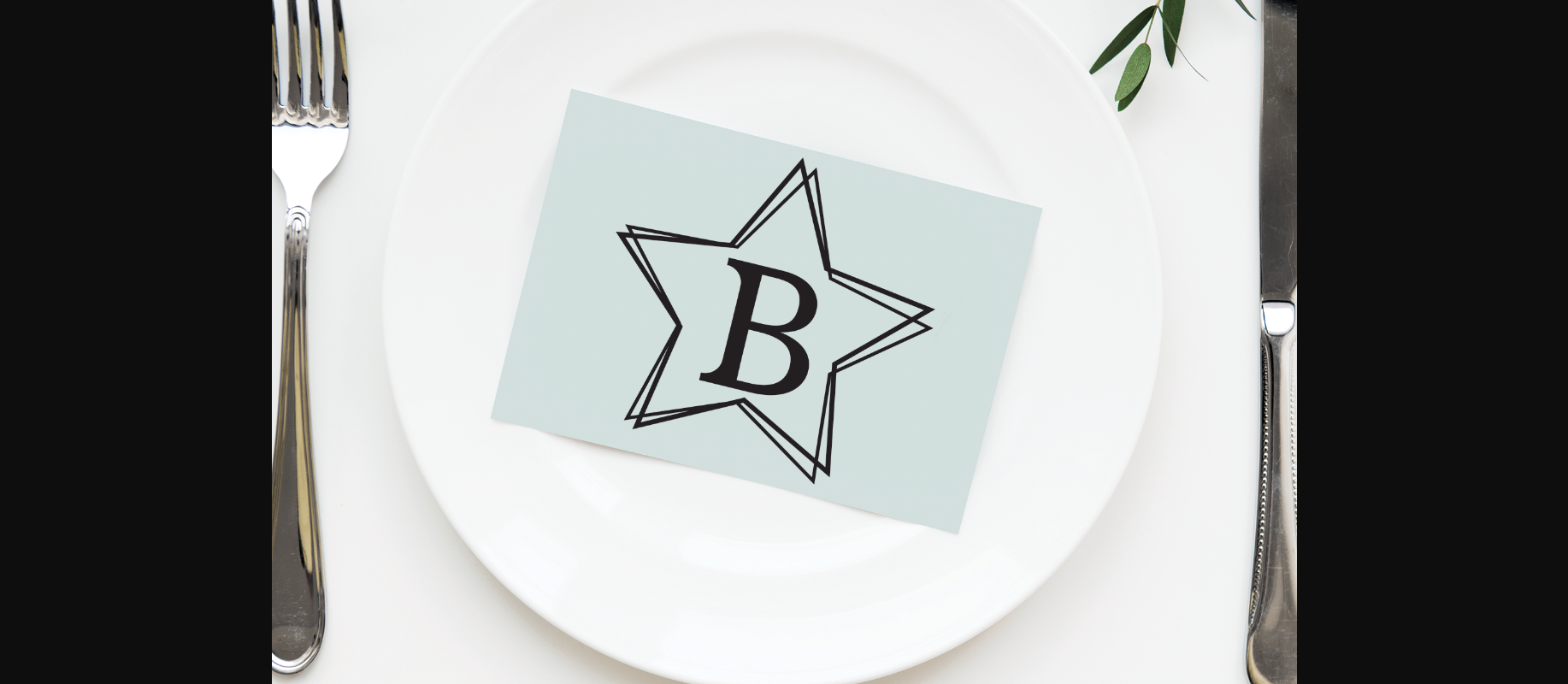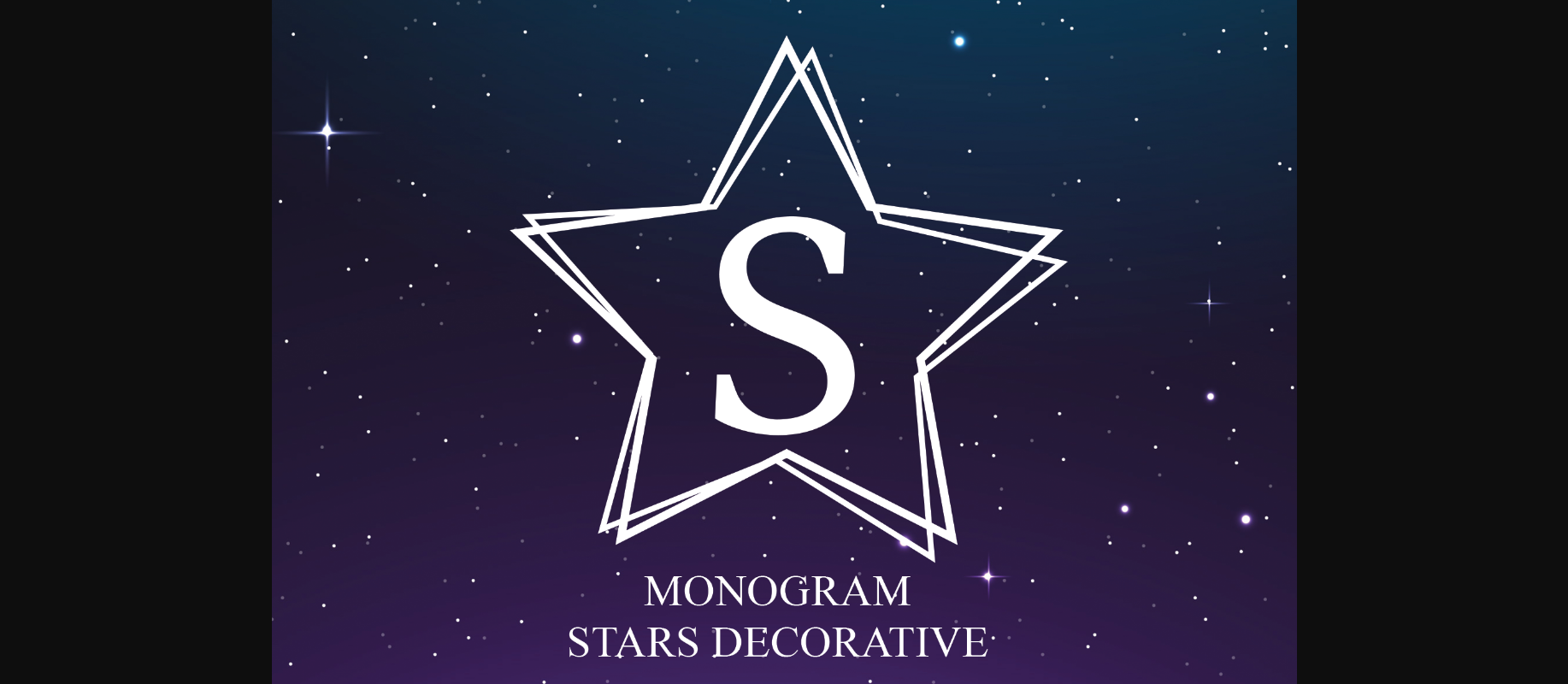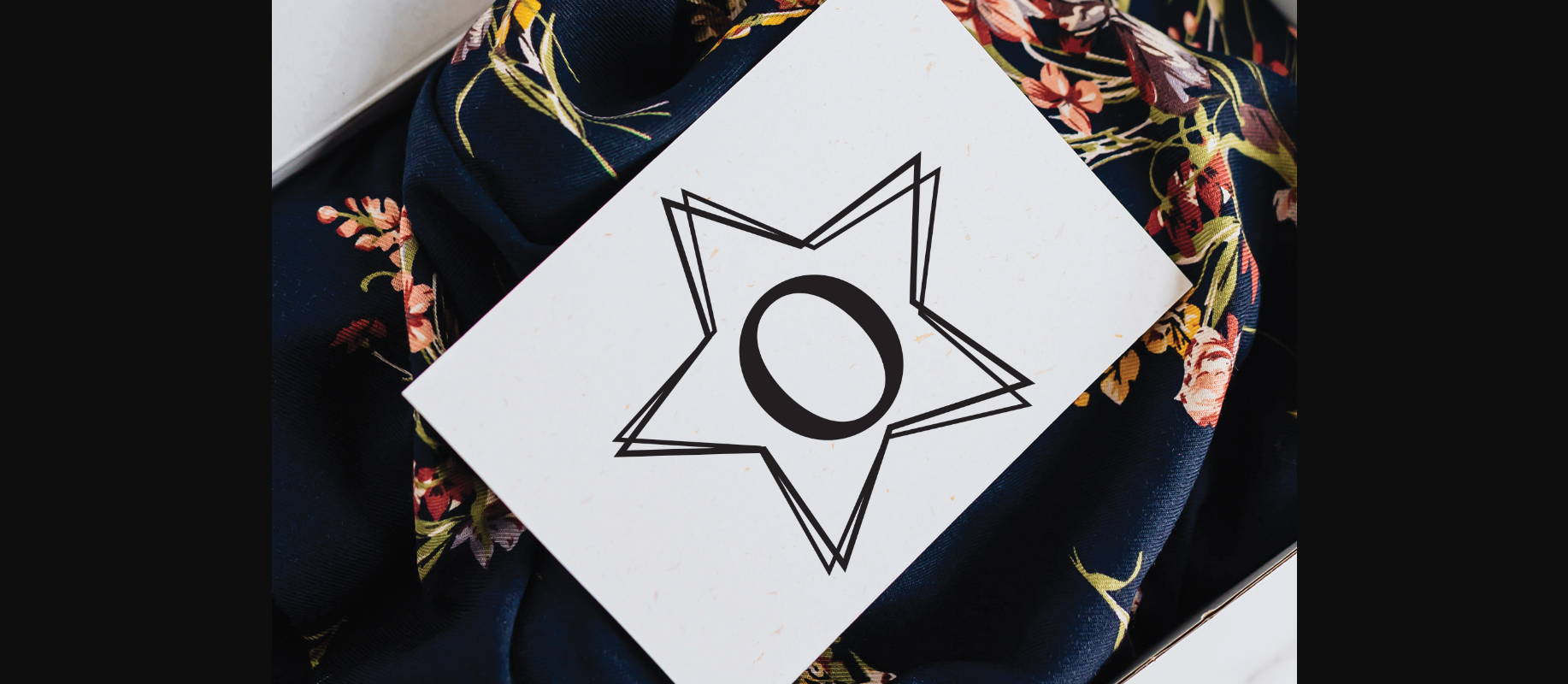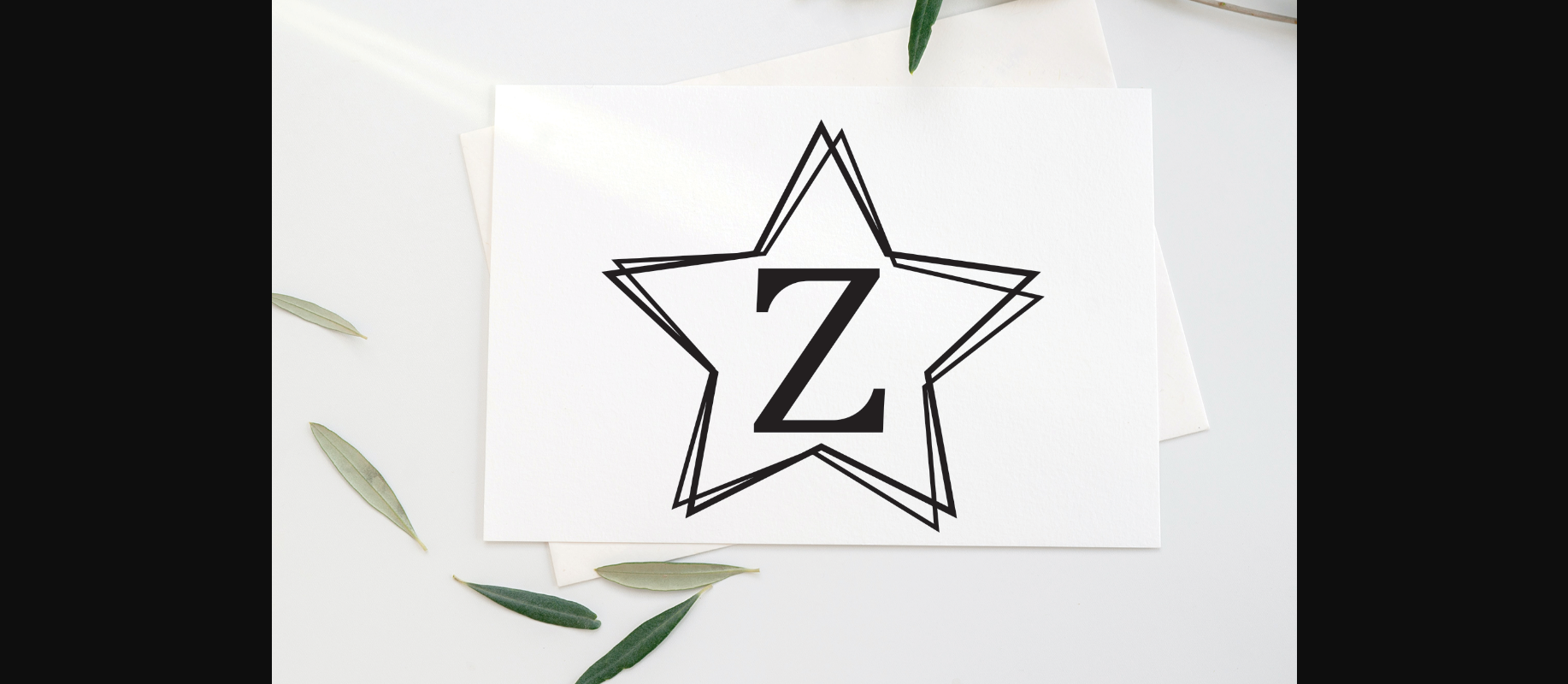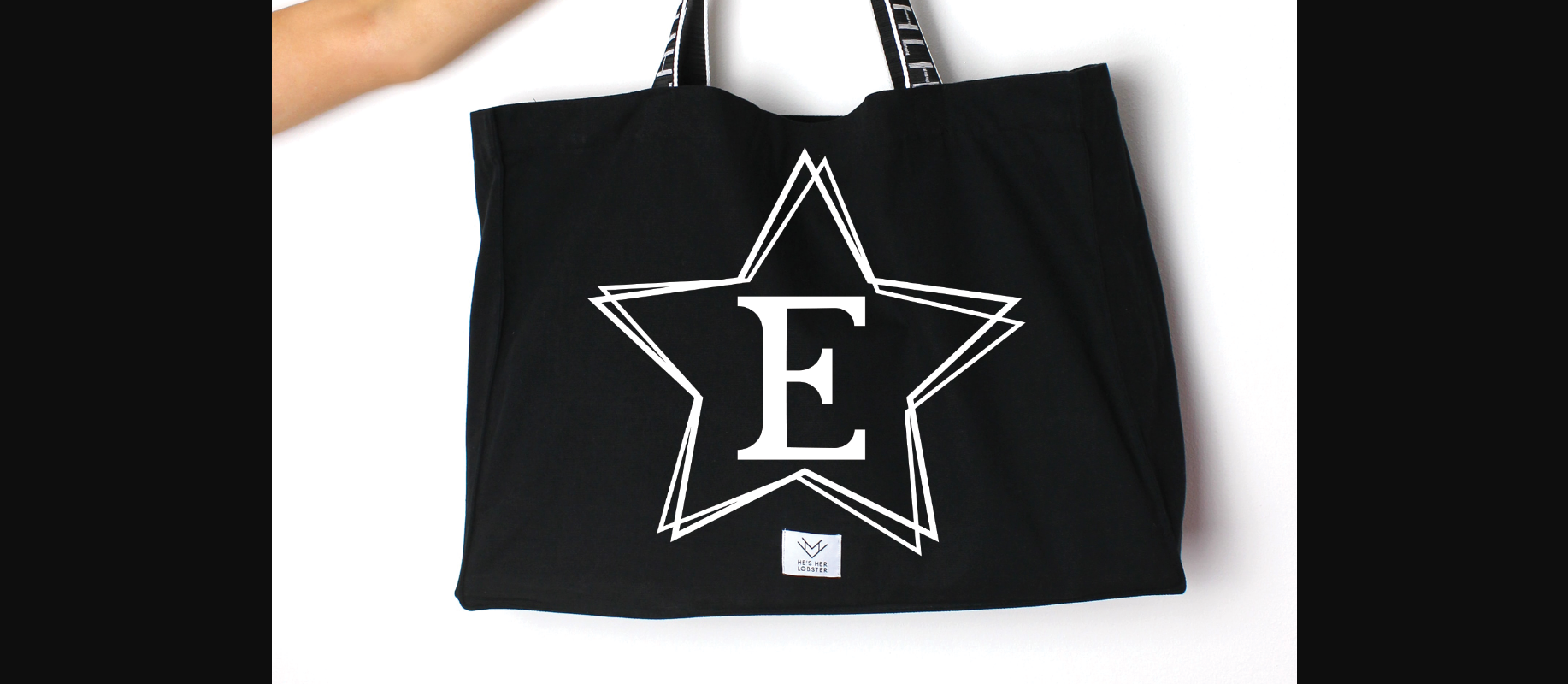
HomeDecorative FontsStars Font Decorative Fonts Stars Font FacebookXPinterestWhatsApp 1 of 7 ... Stars Font Poster 2... Stars Font Poster 3... Stars Font Poster 4... Stars Font Poster 5... Stars Font Poster 6... Stars Font Poster 7... About Stars Font Stars is a modern and trendy decorative font. Add this beautiful looking font to each of your love letters, wedding invitations or favorite design ideas, and you will be astounded by the outcome. DOWNLOAD NOW People also explored Dreaming Times Font 3 The Hard Way RMX Fresh Lemonade Font Sontiquity Font Diary Book Font Marshmallow Font Rantca Font Ribbon Daylight Script Font Juicy Fruity Font 323 0 TagsStarsStars Font Previous articleVictory FontNext articleJasmine Font LEAVE A REPLY Cancel reply Comment: Please enter your comment! Name:* Please enter your name here Email:* You have entered an incorrect email address! Please enter your email address here Website: Save my name, email, and website in this browser for the next time I comment. Personal Use Free Lollipop Melody Personal Use Free Read more about this font Relic Island 2 Personal Use Free Read more about this font BD Geminis Personal Use Free Read more about this font England Personal Use Free Read more about this font BLOG How to Cut Any Font on Cricut: Convert a Font to SVG (Free) Turn any font into a clean SVG so it cuts crisp on Cricut - a quick 3-step workflow using a free font-to-SVG tool. Free vs Paid Fonts: Why Investing in Premium Fonts Is Worth It Best Fonts for YouTube Videos: Make Your Thumbnails Stand Out Where to Buy American Fonts Online in 2024